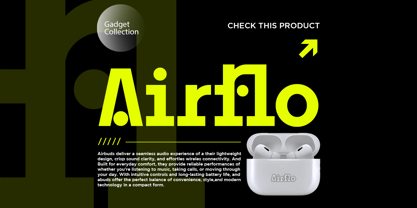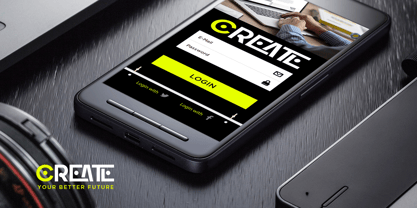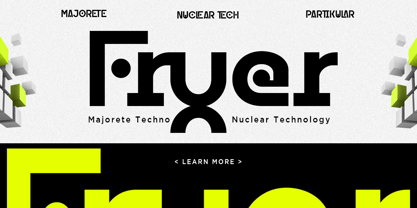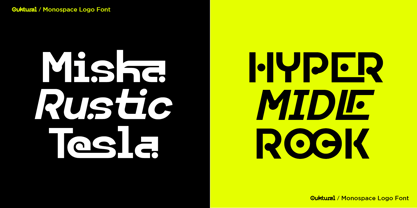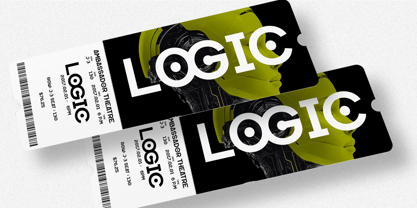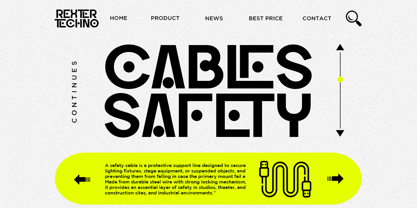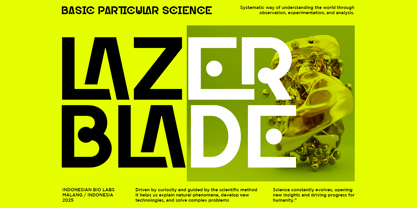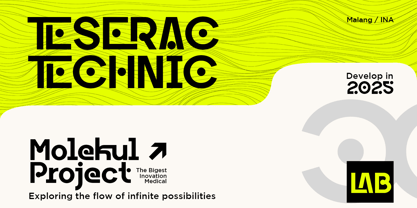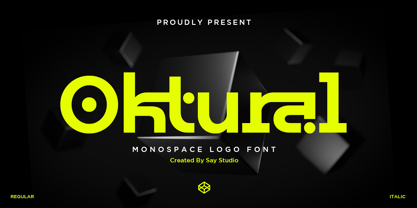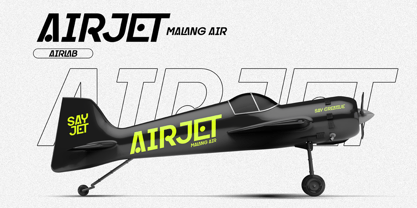
Oktural
by Say Studio
The Oktural Font Family was designed by Mussyayin and published by Say Studio. Oktural contains 2 styles and family package options. More about this family
Oktural is a futuristic monospace logo font crafted for modern brands that demand precision, innovation, and distinctive visual identity. Built with geometric construction and clean modular letterforms, Oktural delivers a bold contemporary look that feels both technical and memorable. Its unique character shapes create an eye-catching appearance while maintaining excellent readability for display applications.
Inspired by digital technology, architecture, and industrial design, Oktural is perfect for projects that require a modern and forward-thinking aesthetic. Whether you're designing logos, startup branding, gaming interfaces, technology products, posters, or digital campaigns, this font provides a professional and futuristic personality that elevates every composition.
Oktural is designed for creatives who want to build strong visual identities with confidence. From technology companies and esports brands to UI concepts and corporate branding, this font helps create impactful designs that communicate innovation, precision, and modern creativity.
• Regular and Italic
• Stylistic Ligatures
• Uppercase and Lowercase
• Multilingual Support
• Number, Symbol, and Puntuation